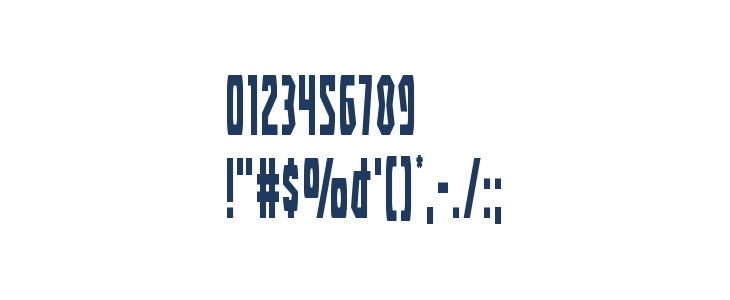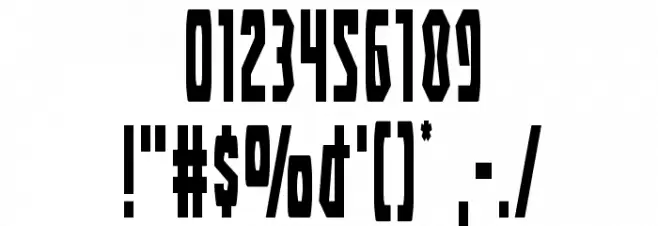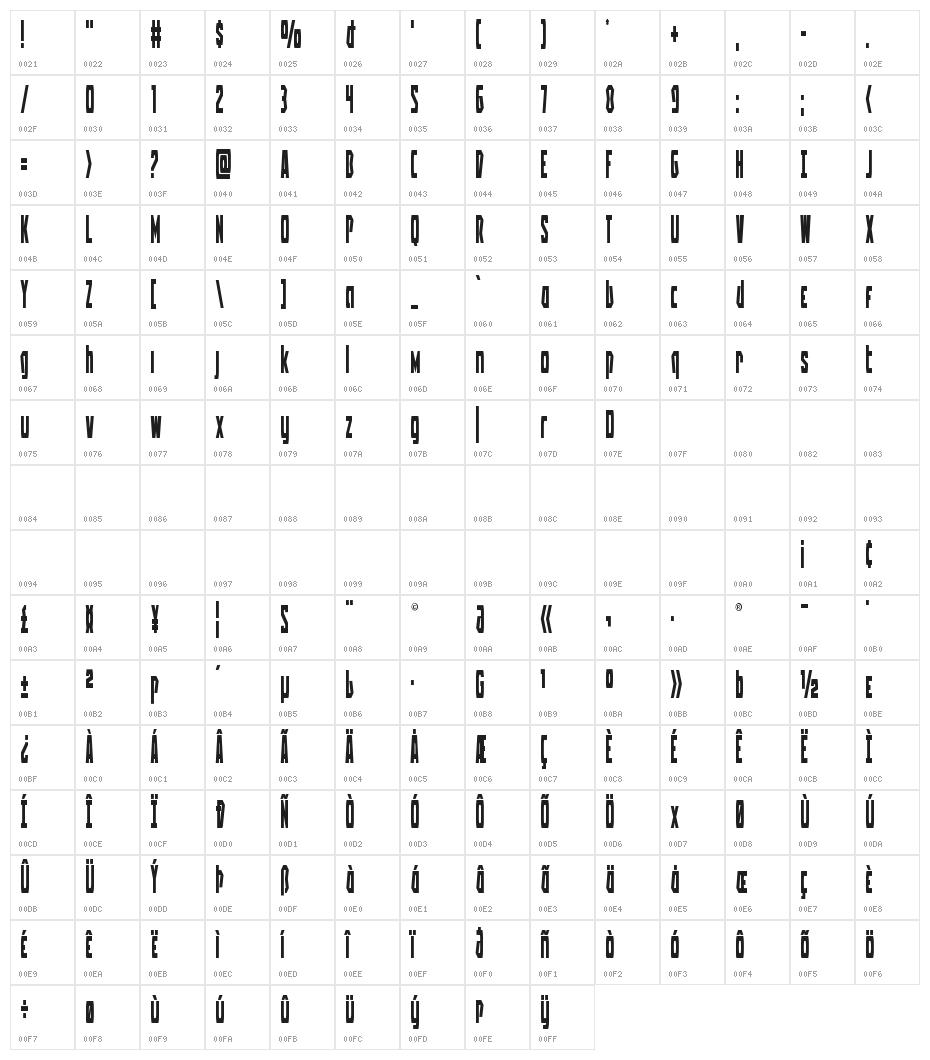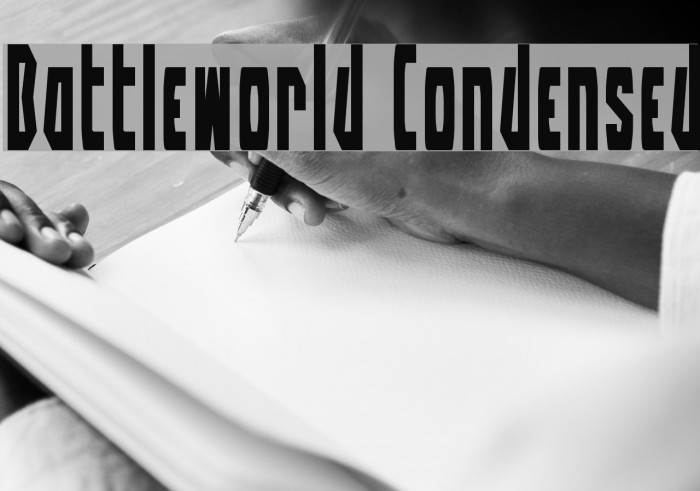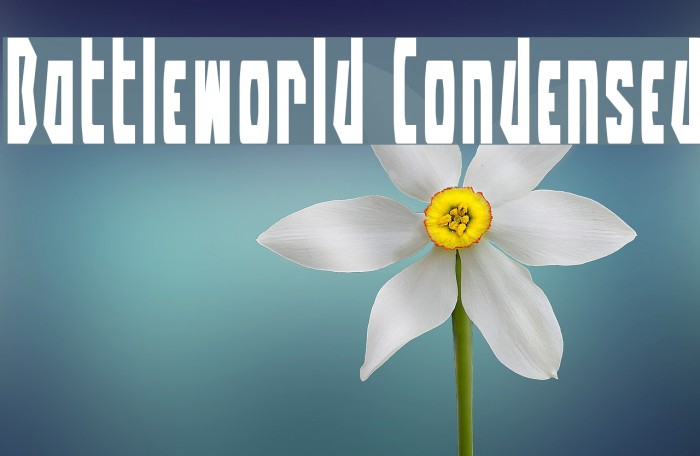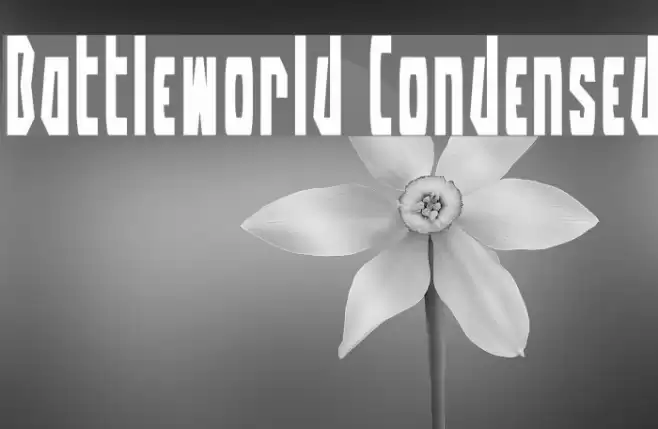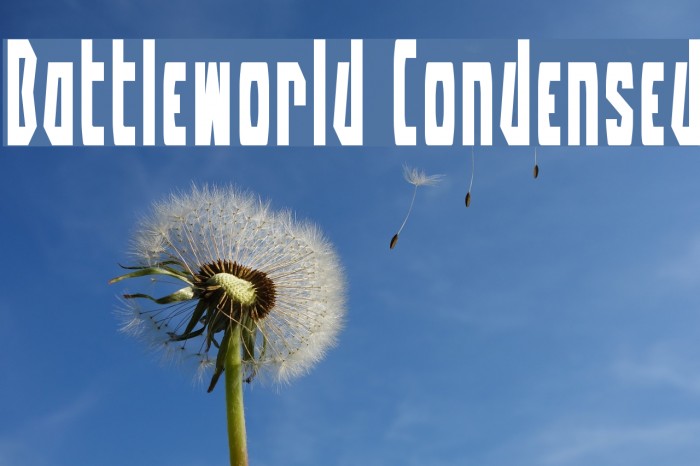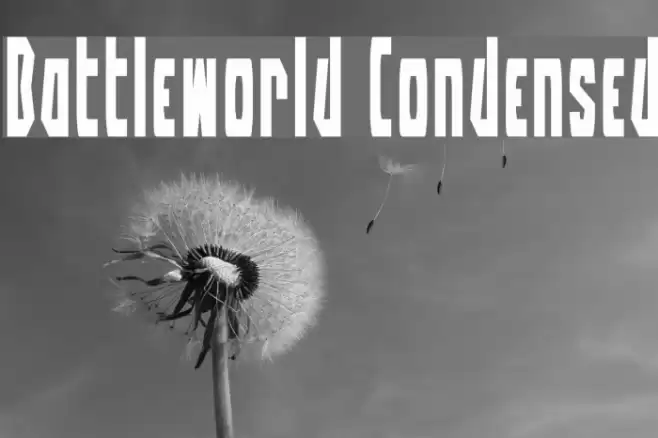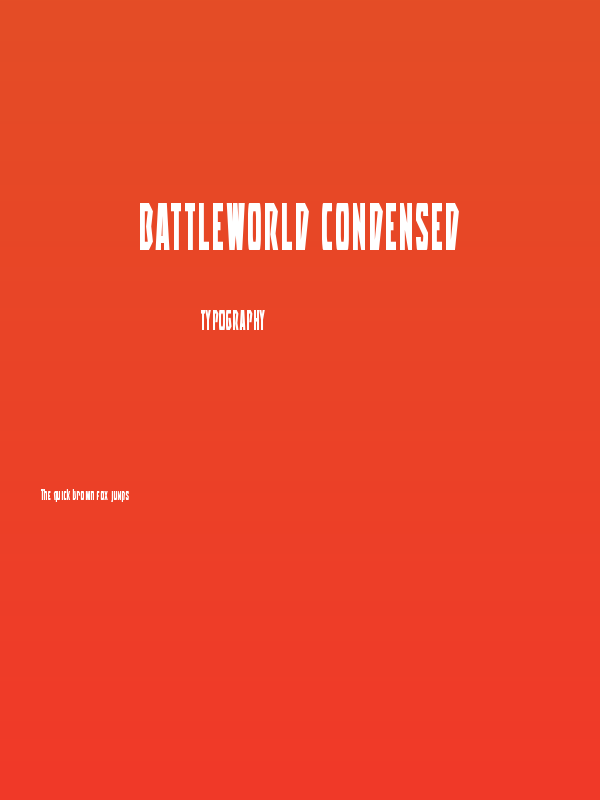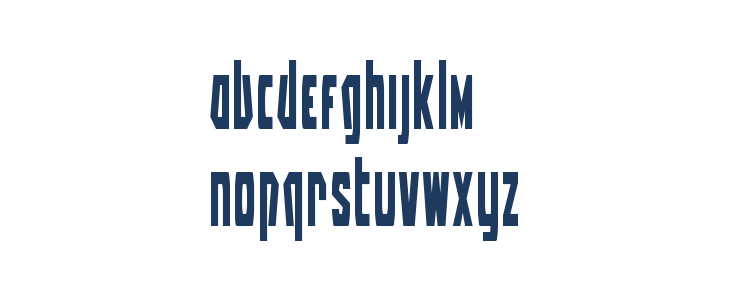
Battleworld Condensed Font
Battleworld Condensed Description
This font features a bold and condensed style with sharp, angular edges that give it a modern and aggressive appearance. The uppercase and lowercase letters maintain a consistent height, contributing to a uniform look. The numerals are equally bold, matching the overall aesthetic. Special characters are included, each designed to complement the angular nature of the letters. The font's condensed width allows for efficient use of space, making it suitable for impactful headlines and titles. Its unique design is both eye-catching and versatile, suitable for various creative projects.